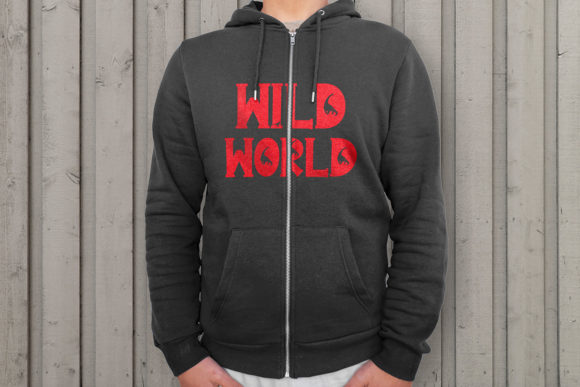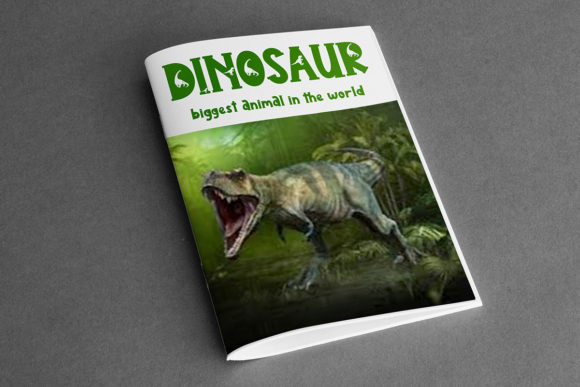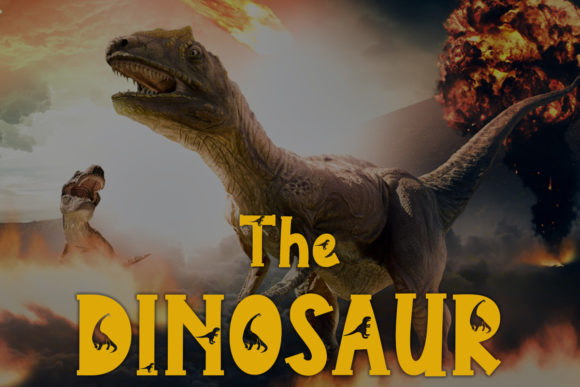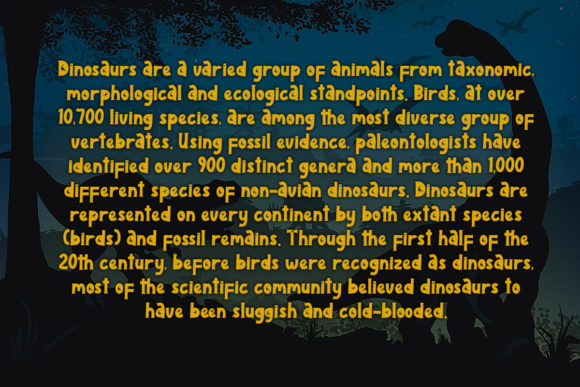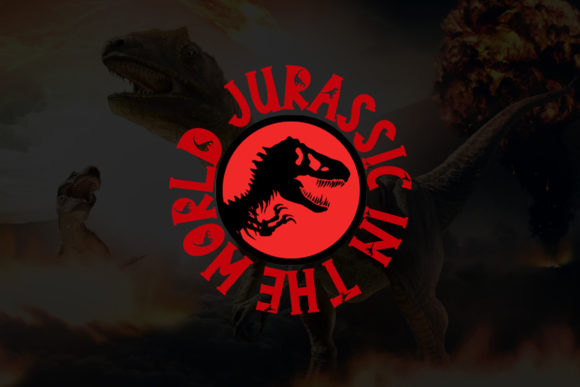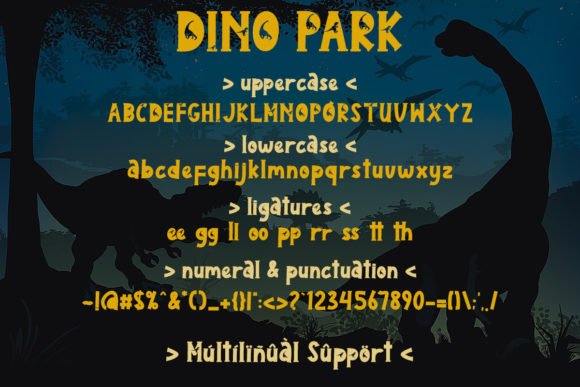
Dino Park Font: The Ultimate Choice for Fun and Playful Designs
Are you looking for a font that can add a touch of playfulness and excitement to your designs? Look no further than the Dino Park font! This cool, fun, and friendly display font is perfect for any children activity or school project that requires a dash of creativity and authenticity.
What Makes Dino Park Font So Special?
Dino Park font is designed to evoke a sense of nostalgia and fun, making it an ideal choice for designers and crafters who work on projects for kids. The font’s playful and authentic feel is sure to capture the imagination of children and adults alike, making it perfect for a wide range of applications, from children’s books and educational materials to posters, flyers, and more.
Key Features of Dino Park Font
• Playful and Fun: Dino Park font is designed to be fun and engaging, making it perfect for projects that require a playful touch.
• Authentic and Friendly: The font’s friendly and approachable feel makes it suitable for a wide range of applications, from educational materials to children’s entertainment.
• Display Font: Dino Park font is a display font, making it perfect for headlines, titles, and other prominent text elements.
• Easy to Read: Despite its playful feel, Dino Park font is easy to read, making it suitable for use in a variety of contexts.
Uses for Dino Park Font
Dino Park font is a versatile font that can be used in a wide range of applications, including:
• Children’s Books and Educational Materials: The font’s playful and friendly feel makes it perfect for use in children’s books, educational materials, and other learning resources.
• Posters and Flyers: Dino Park font is ideal for use in posters and flyers for children’s events, such as birthday parties, school fairs, and more.
• Crafting and DIY Projects: The font’s fun and playful feel makes it perfect for use in crafting and DIY projects, such as making signs, banners, and other decorative items.
• Web Design: Dino Park font can also be used in web design, particularly for websites that cater to children or require a playful and fun feel.
Tips for Using Dino Park Font
Here are some tips for using Dino Park font effectively in your designs:
• Use it for Headlines and Titles: Dino Park font is perfect for use in headlines and titles, where its playful and fun feel can really shine.
• Pair it with Other Fonts: Consider pairing Dino Park font with other fonts to create a unique and interesting visual effect.
• Experiment with Colors: Don’t be afraid to experiment with different colors and textures to add depth and interest to your designs.
• Keep it Simple: While Dino Park font is playful and fun, it’s still a good idea to keep your designs simple and easy to read.
Font Name Dino Park Font
Author yogaletter6
In conclusion, Dino Park font is a cool, fun, and friendly display font that is perfect for any children activity or school project. Its playful and authentic feel makes it an ideal choice for designers and crafters who want to add a touch of excitement and creativity to their designs. With its versatility and ease of use, Dino Park font is sure to become a favorite among designers and crafters of all skill levels.